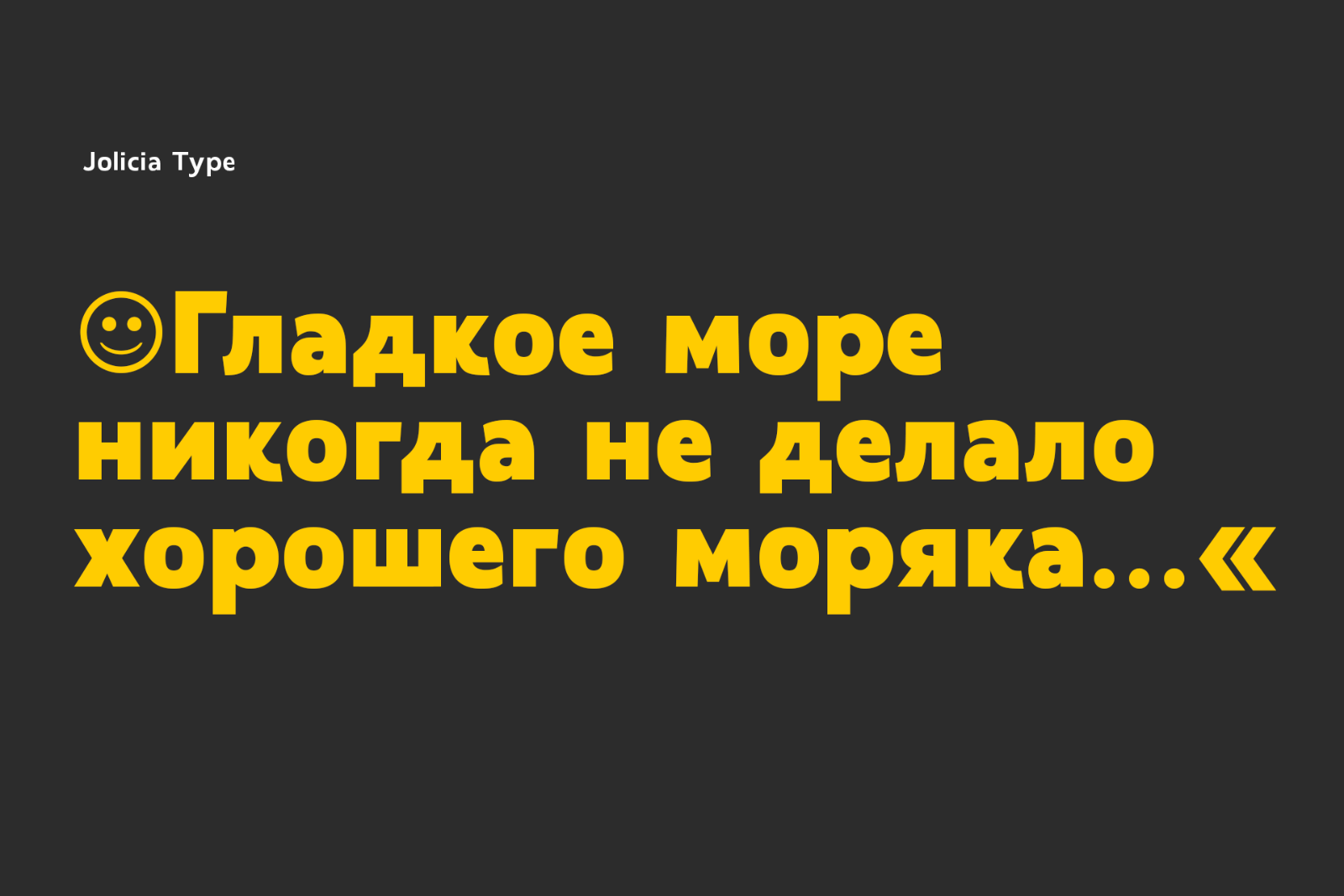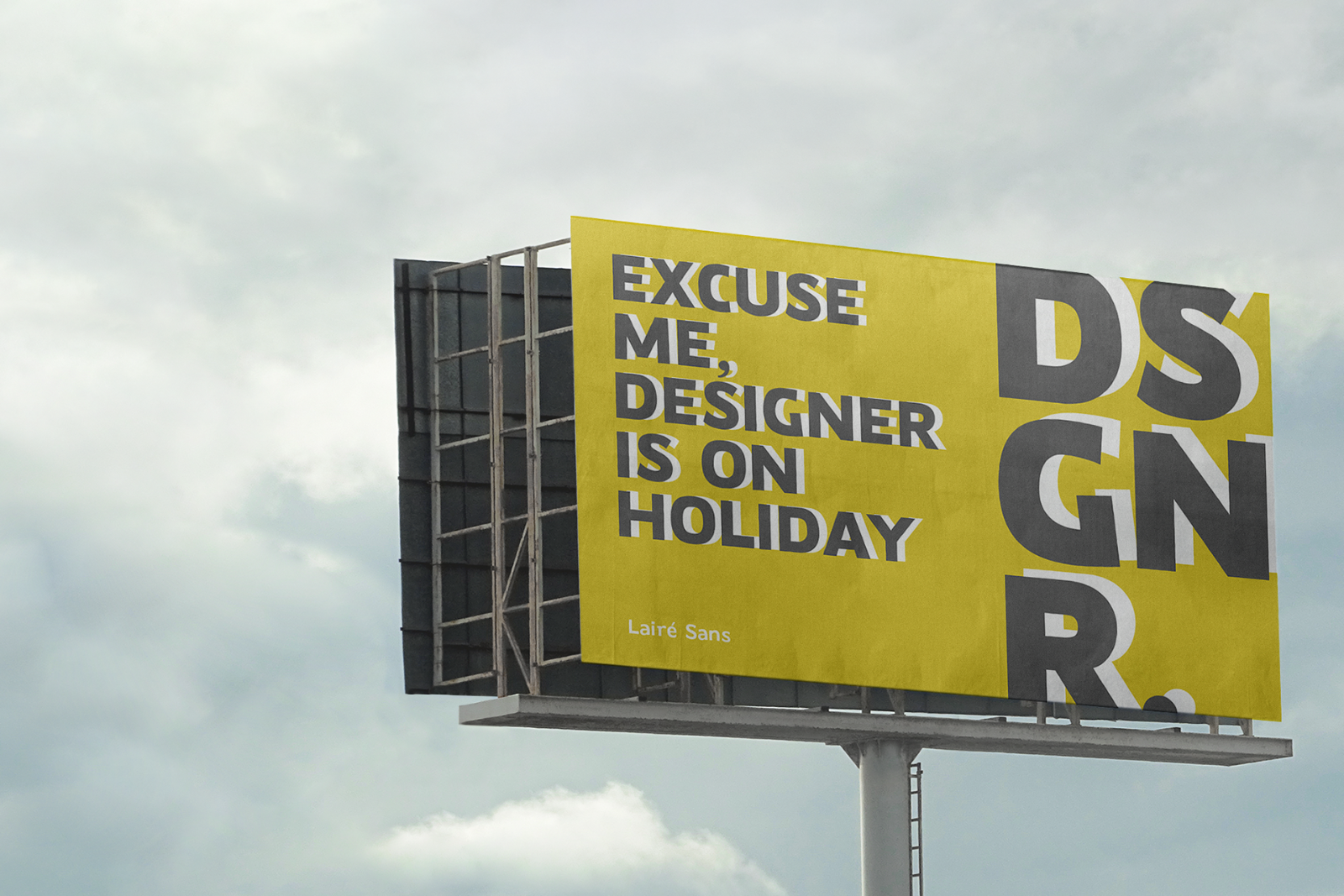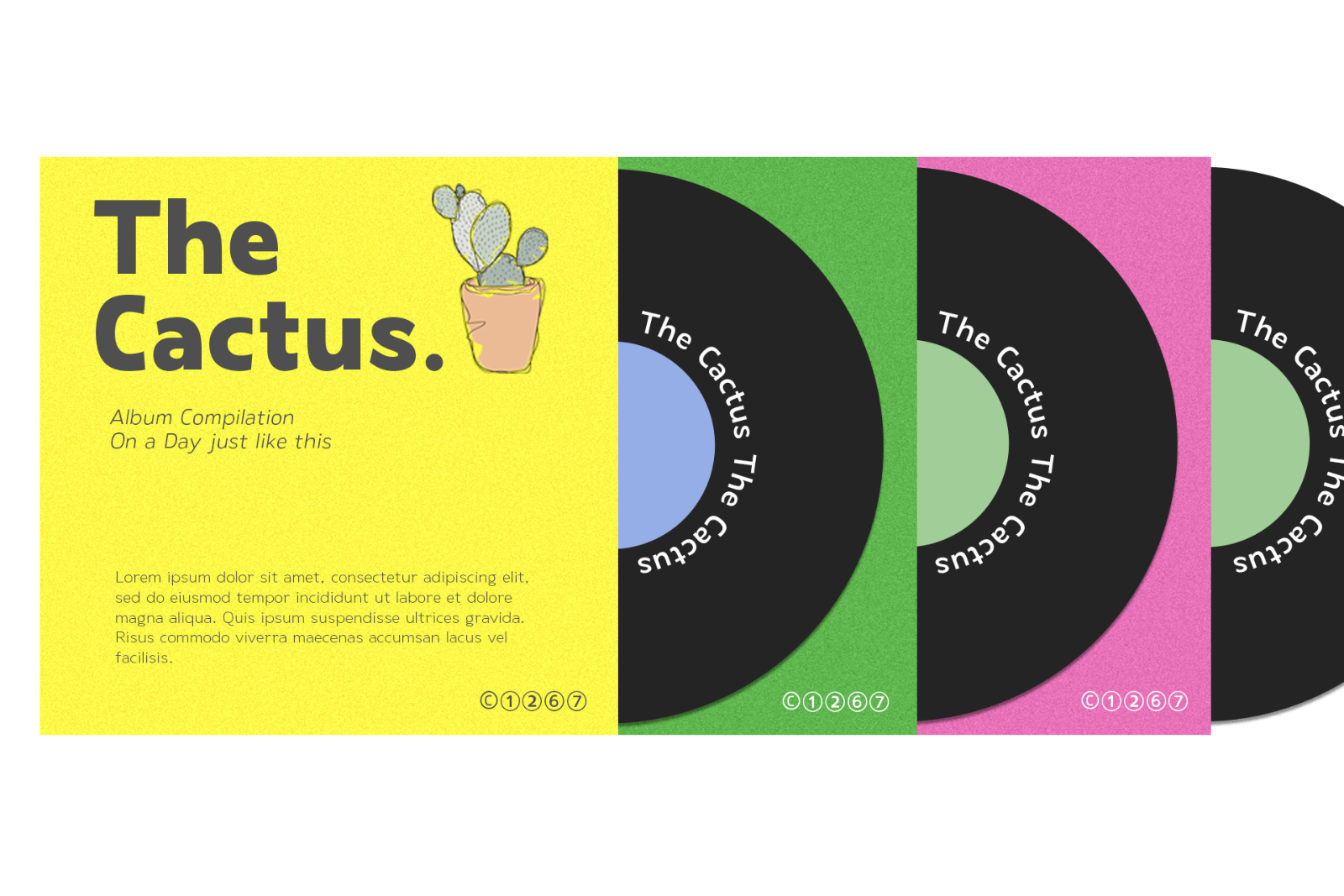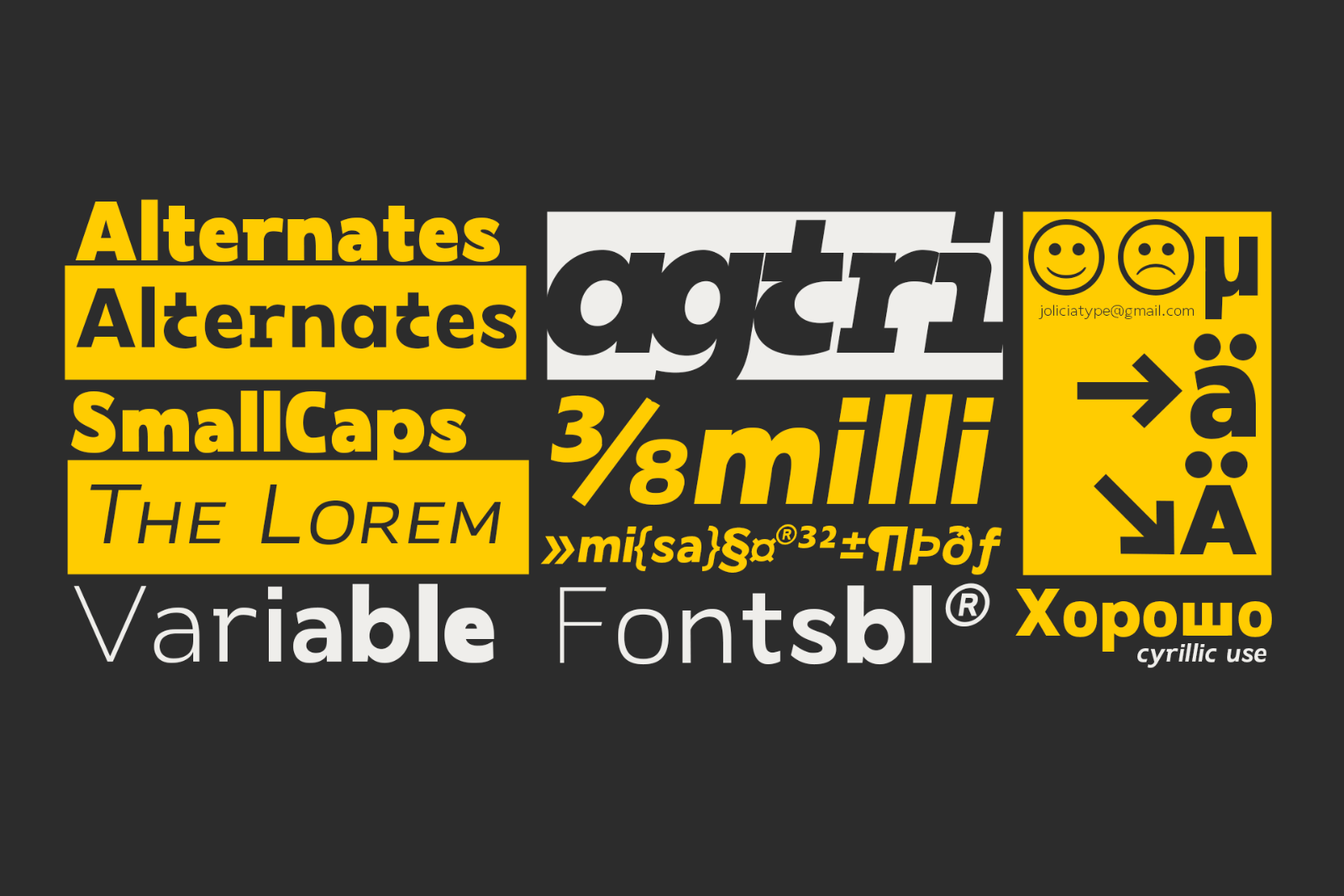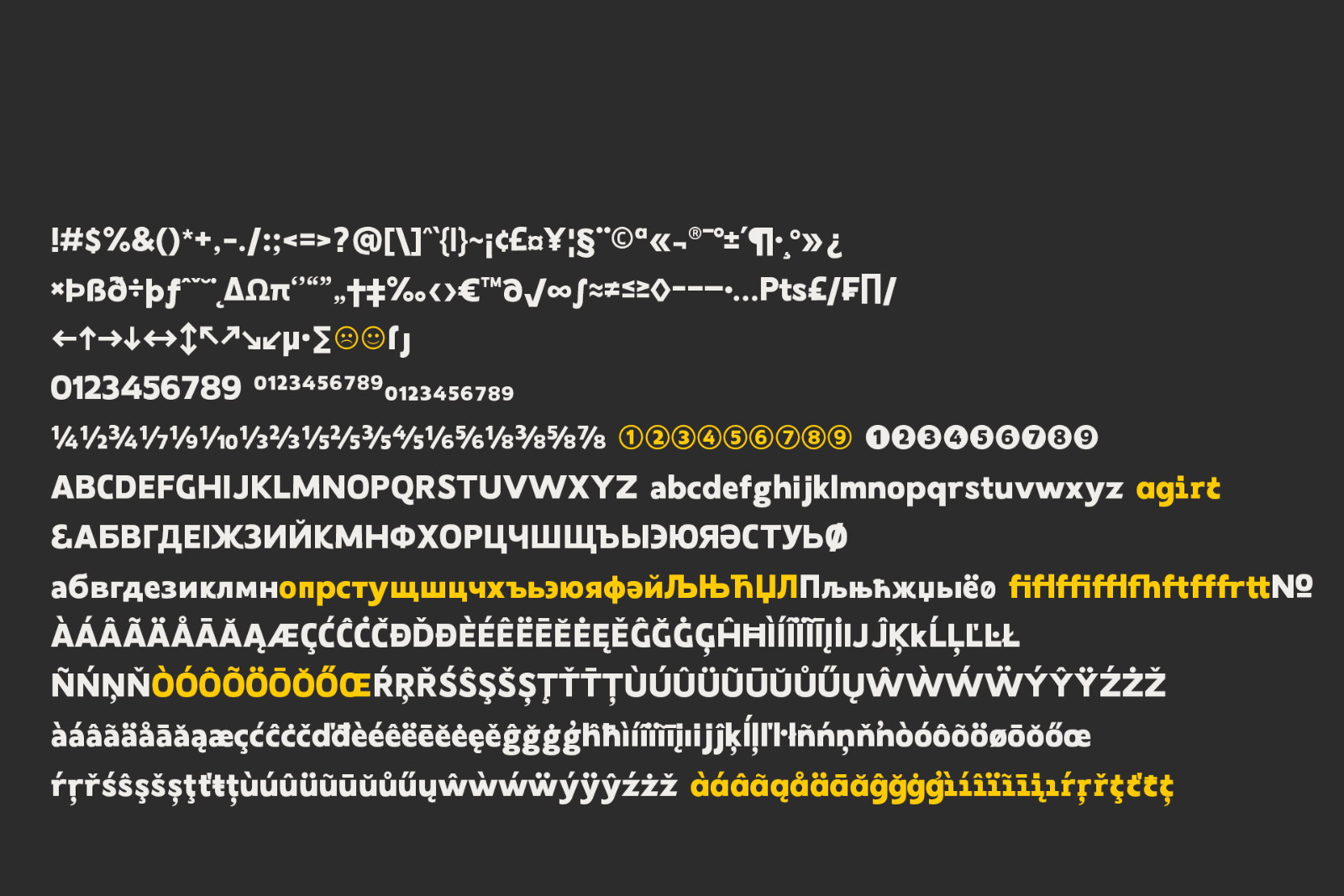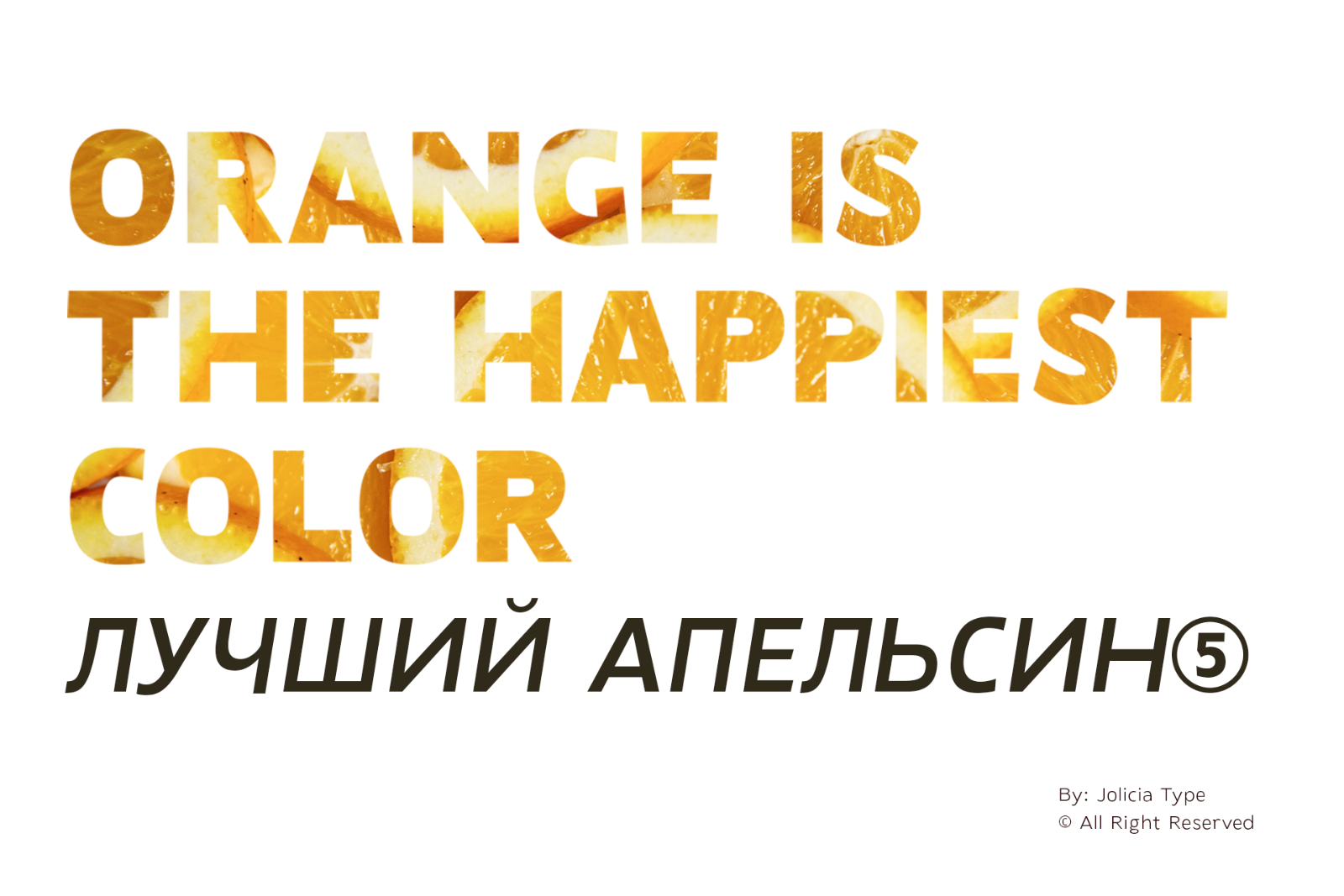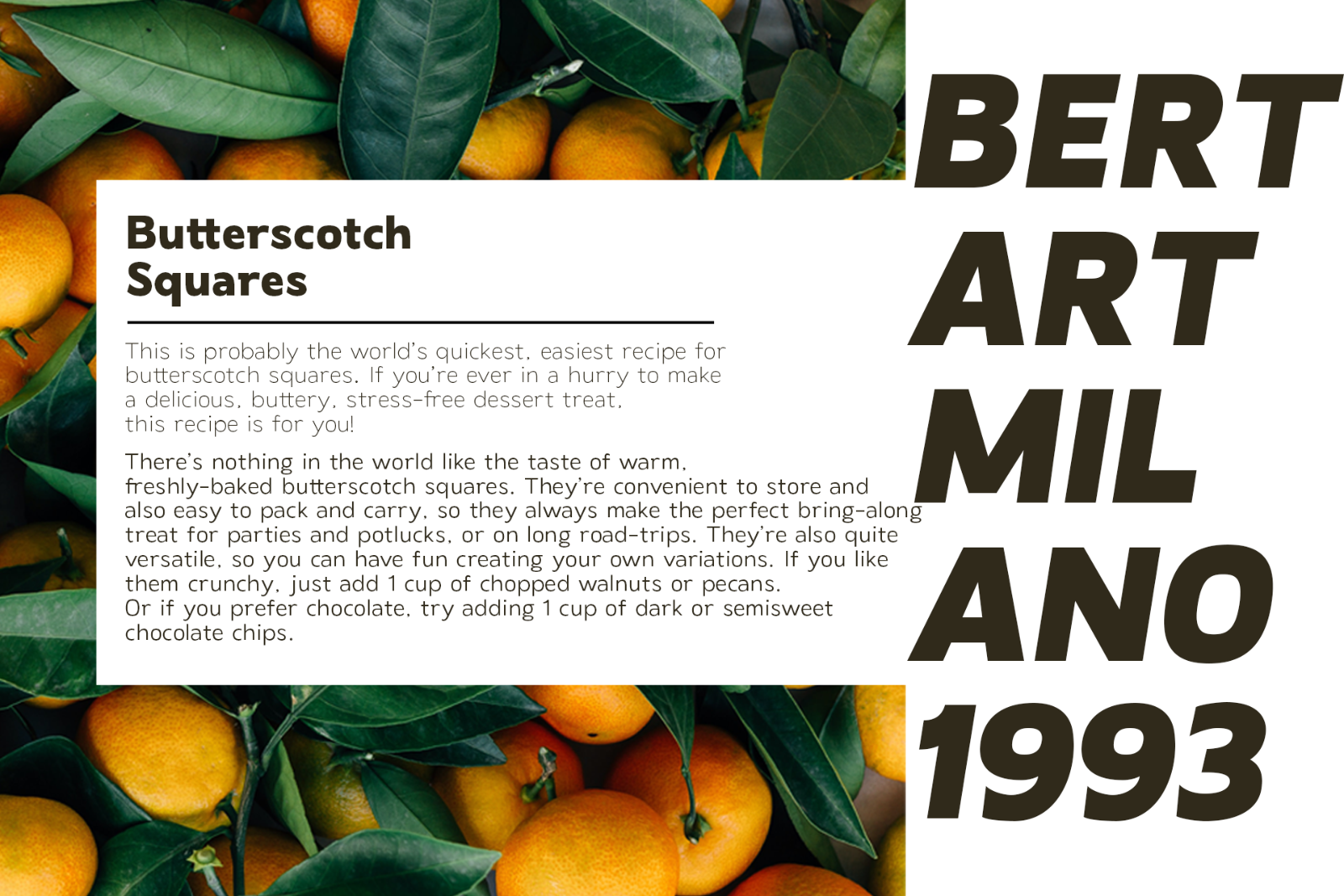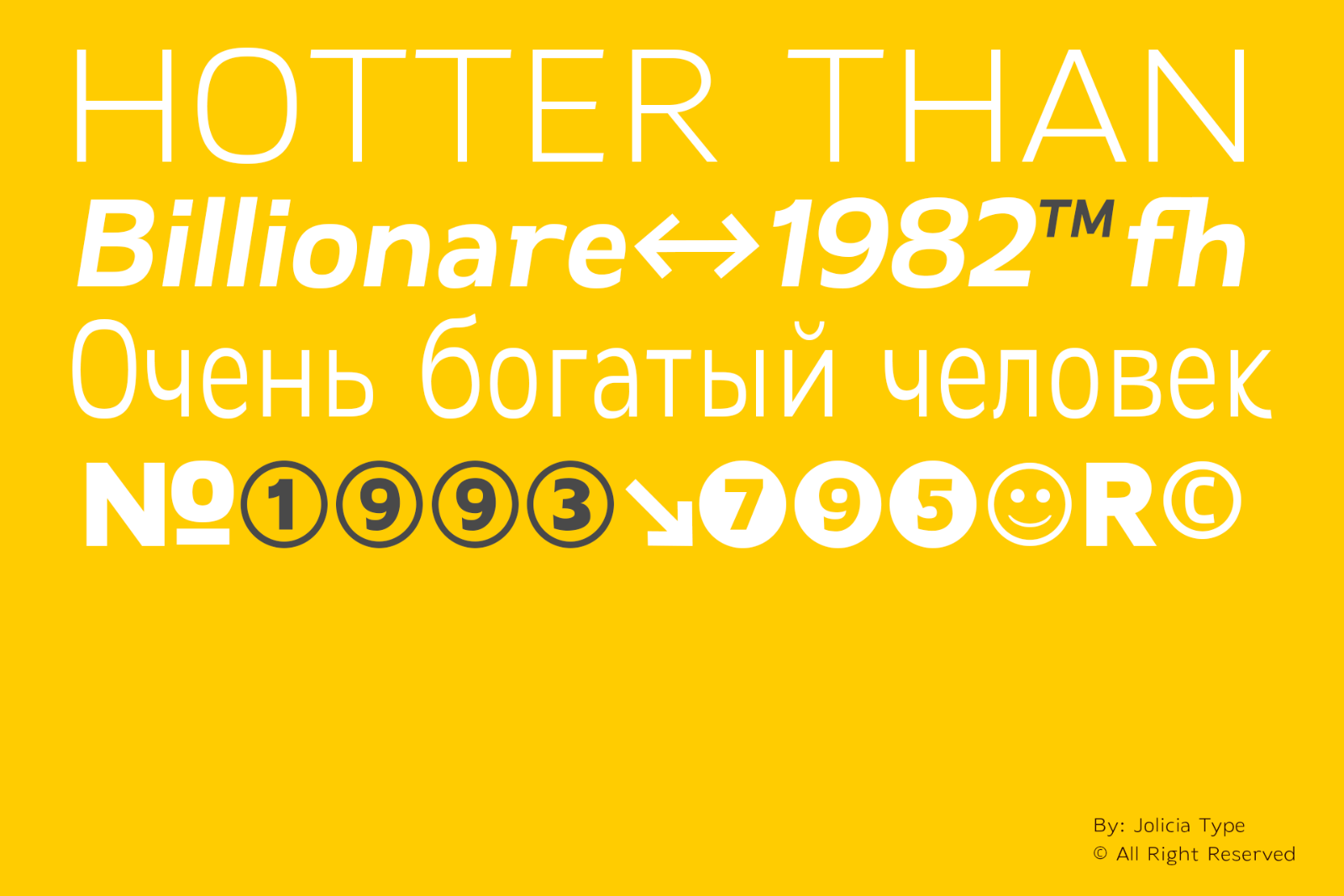
Laire sans that we created at the end of 2021, we made visual communication more Friendly, bold with a geometric touch in our sans category called Laire, has a good level of legibility when applied as body text because we really consider the optical in each letter.
Laire Sans has 40 Styles of Normal, Condensed, Oblique fonts with Weight from thin to extra Black, has a total of 693 glyps, Cyrillic is also available to meet the needs of several languages.
Designed with Opentype features to help make using fonts easier
We also include variable fonts to make it easier for users to set their own according to their desired needs